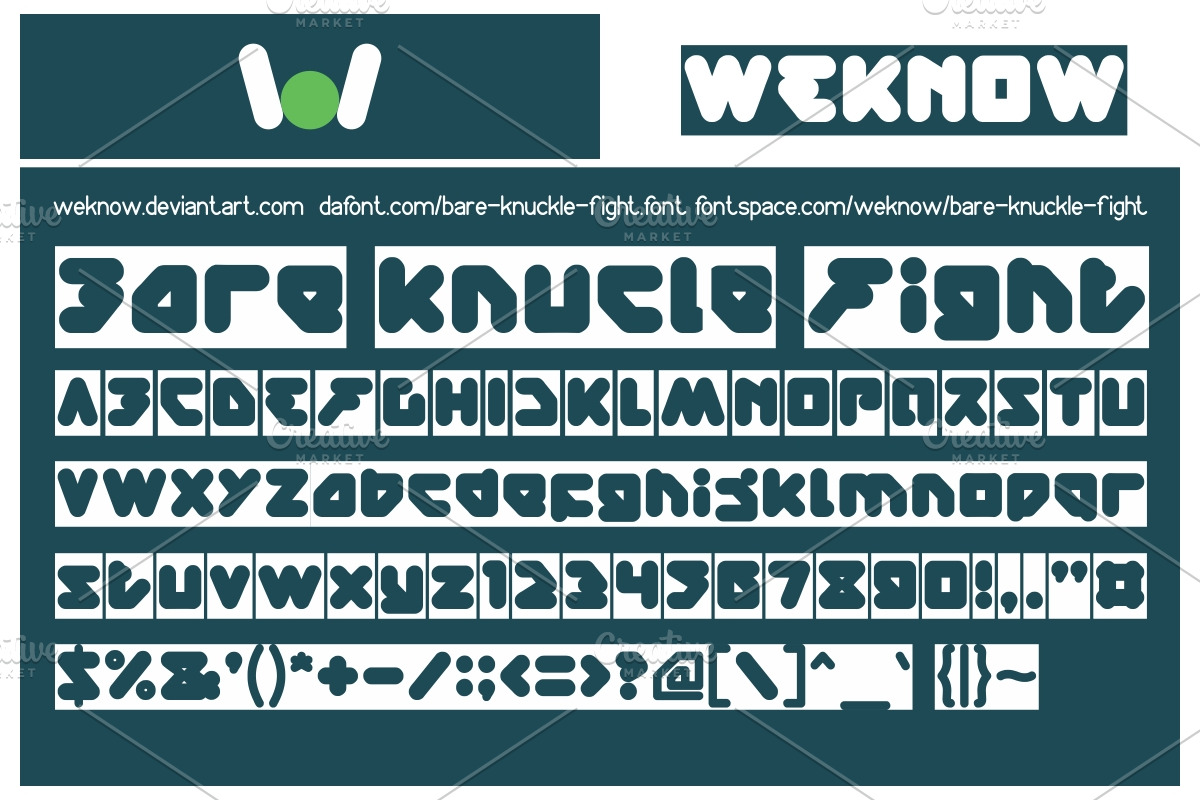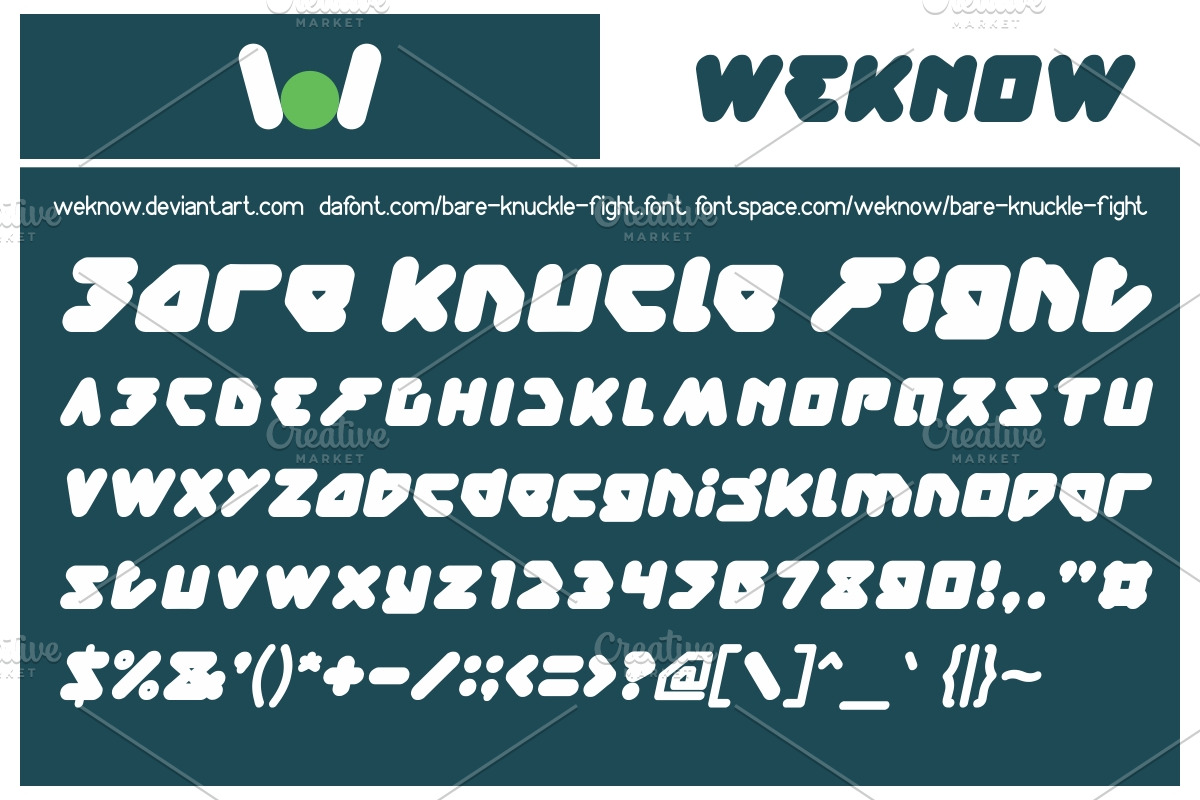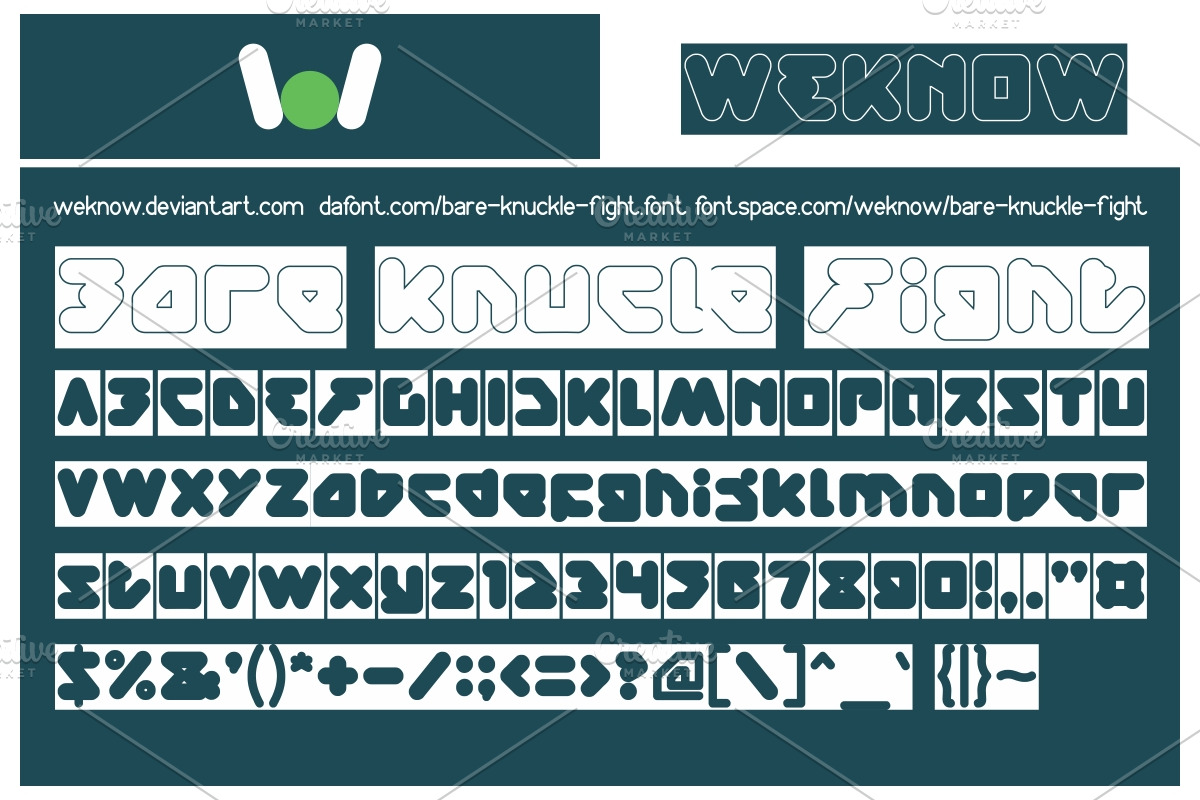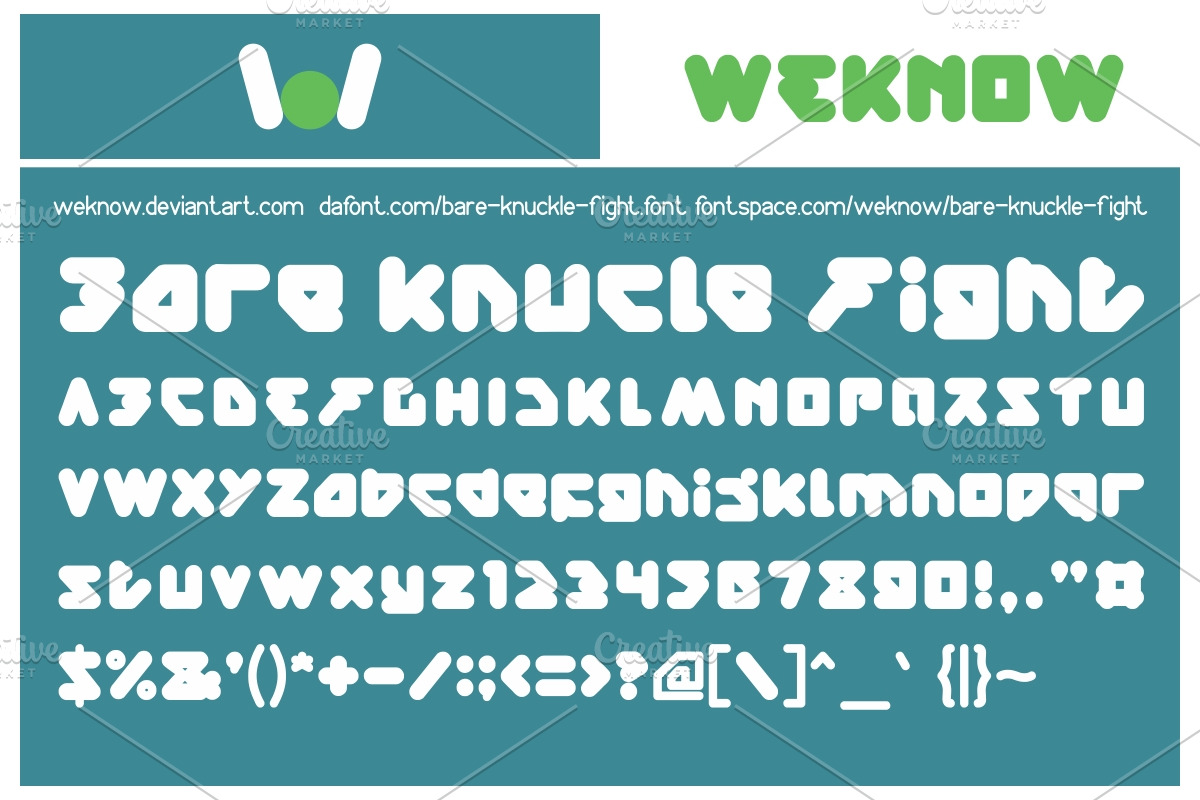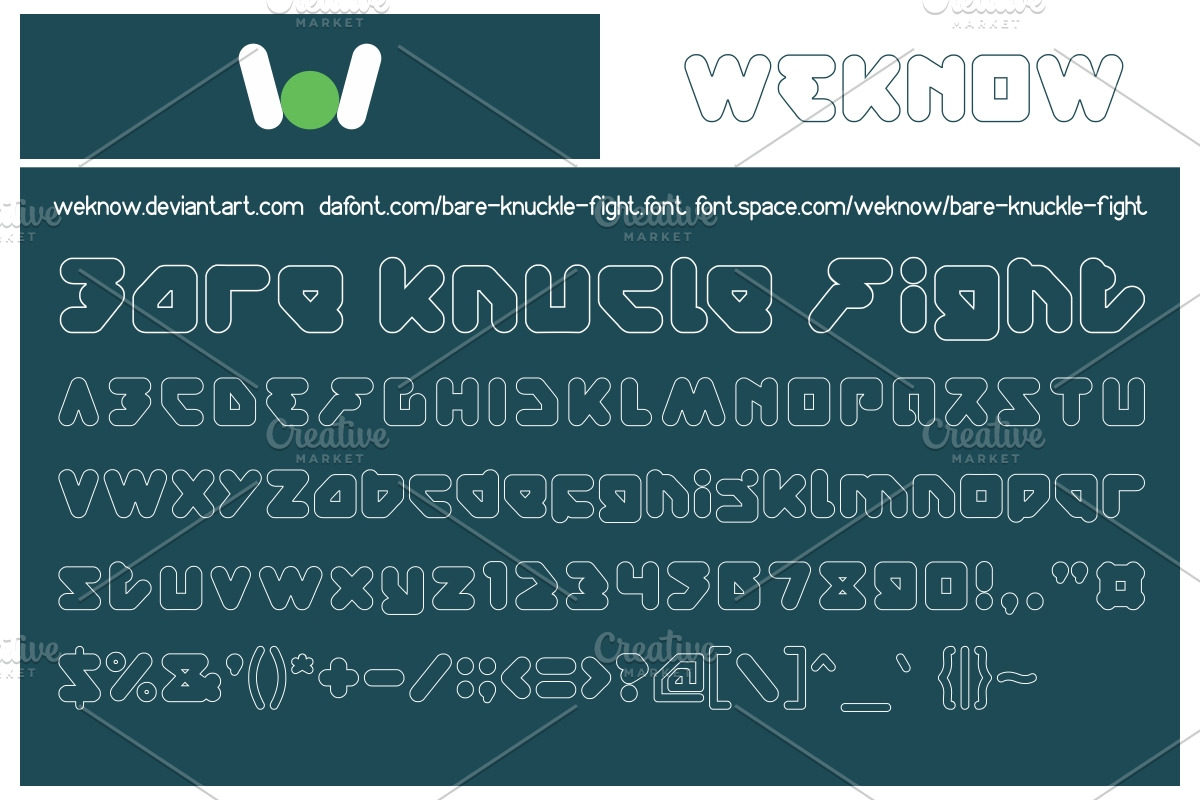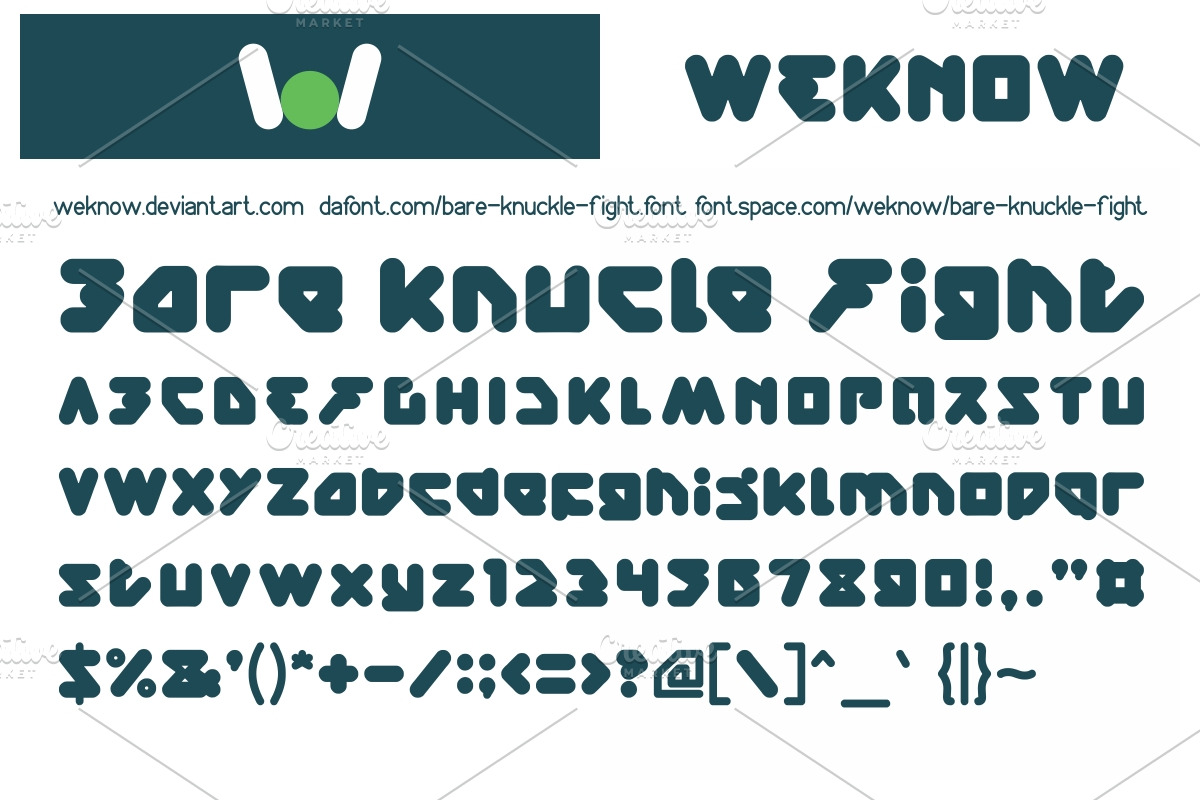
barknuckle fight font
available style: Bare Knucle Fight-Hollow, Bare Knucle Fight-Hollow-Inverse, Bare Knucle Fight-Light, Bare Knuckle Fight-Italic
Why barknuckle fight font is worth a look
barknuckle fight font by weknow fits naturally into Branding, posters, packaging, typography.